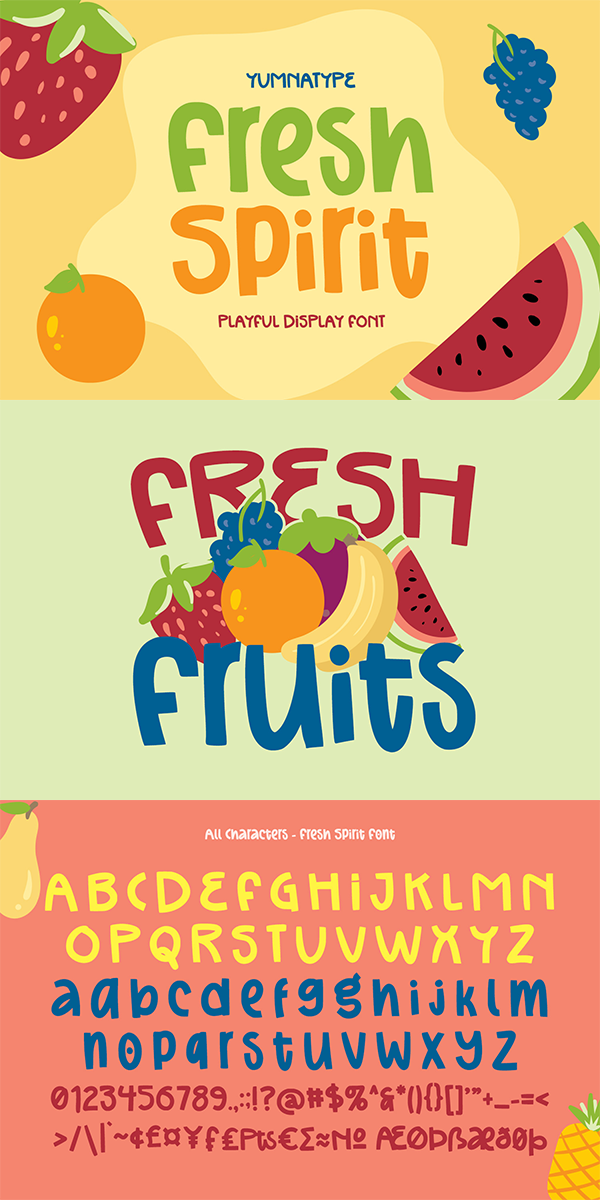
Fresh Spirit Font
About Fresh Spirit
Fresh Spirit is a unique display font in round, twisting styles on the letters’ edges. It is very suitable to apply for products related to food and drink especially fruit due to its fun, cute characteristics. Fresh Spirit font, which provides a clipart in line with the theme as a bonus, will create some soft, fun, adorable nuances and increase visual attractiveness to your designs. In addition, you can enjoy the available features here.
Fresh Spirit fits best for various design projects, such as brandings, headings, magazine covers, quotes, printed products, merchandise, social media, etc. Find out more ways to use this font by taking a look at the font preview.